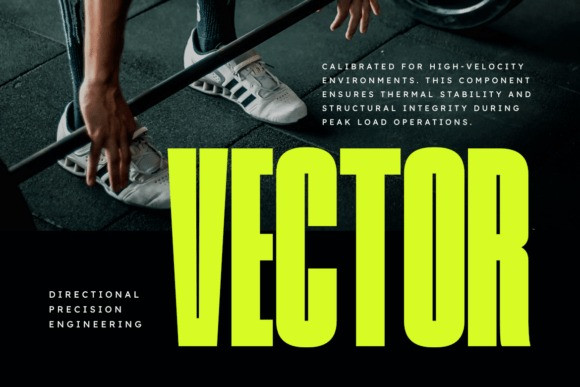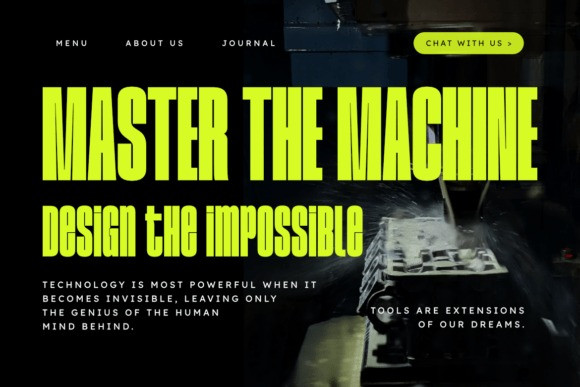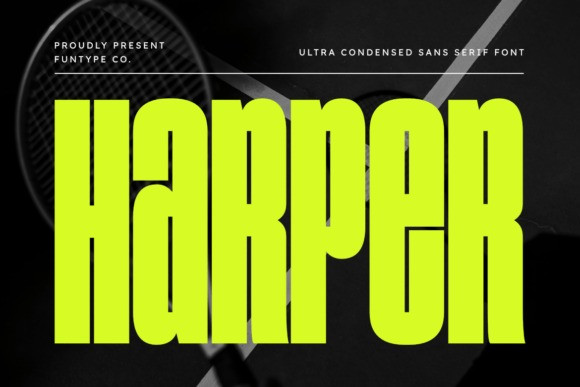
Harper Font
Harper Font a striking ultra-narrow sans serif font that perfectly embodies boldness and strength. Boasting supreme space efficiency and an undeniable typographic influence, Harper’s towering height paired with its immaculate geometric lines transforms any piece of text into a masterpiece of captivation. Be it attention-grabbing headlines, sophisticated corporate logos, or industrial brand designs – Harper enhances it with a distinctive touch of modern elegance and professional charm. Project confidence and authority through your graphic content with Harper’s commanding design. Its remarkable adaptability across various design mediums ensures it perfectly complements your project, be it digital or on print. Harper is offered in both OTF and TTF formats to cater to your specific needs. Experience the transformative power of your words with Harper.